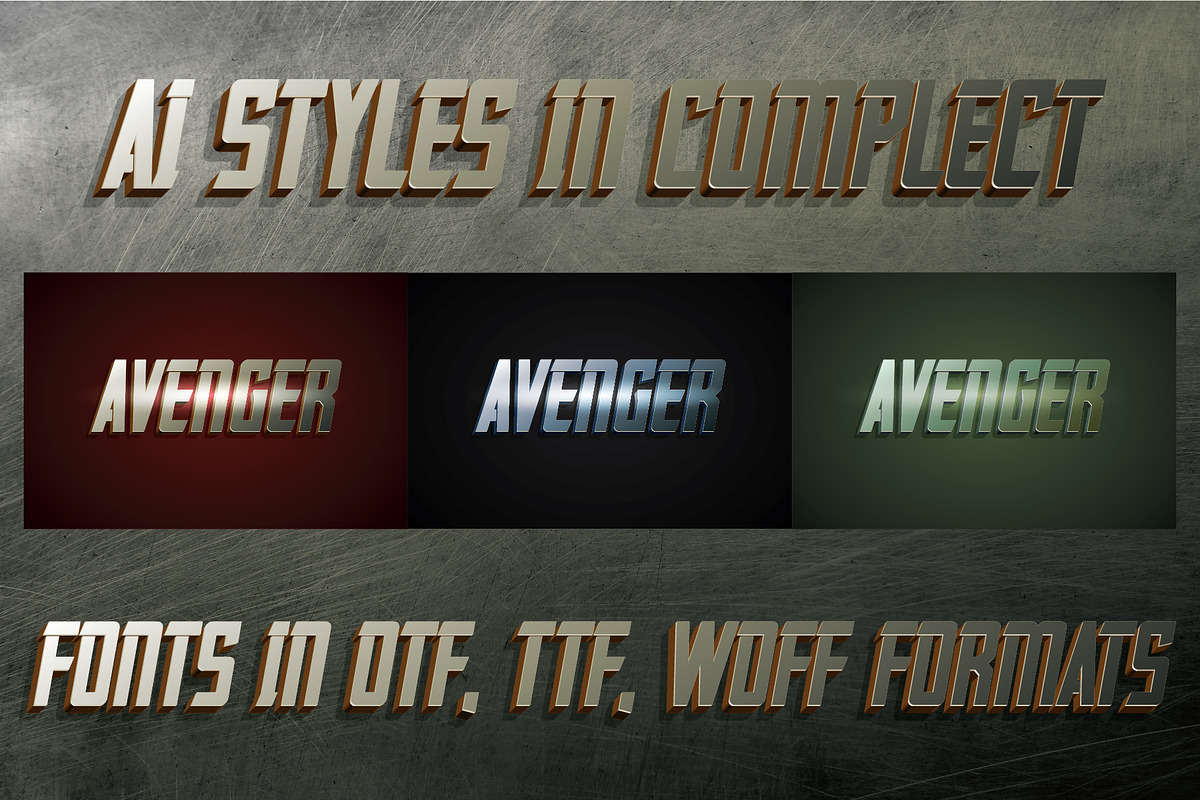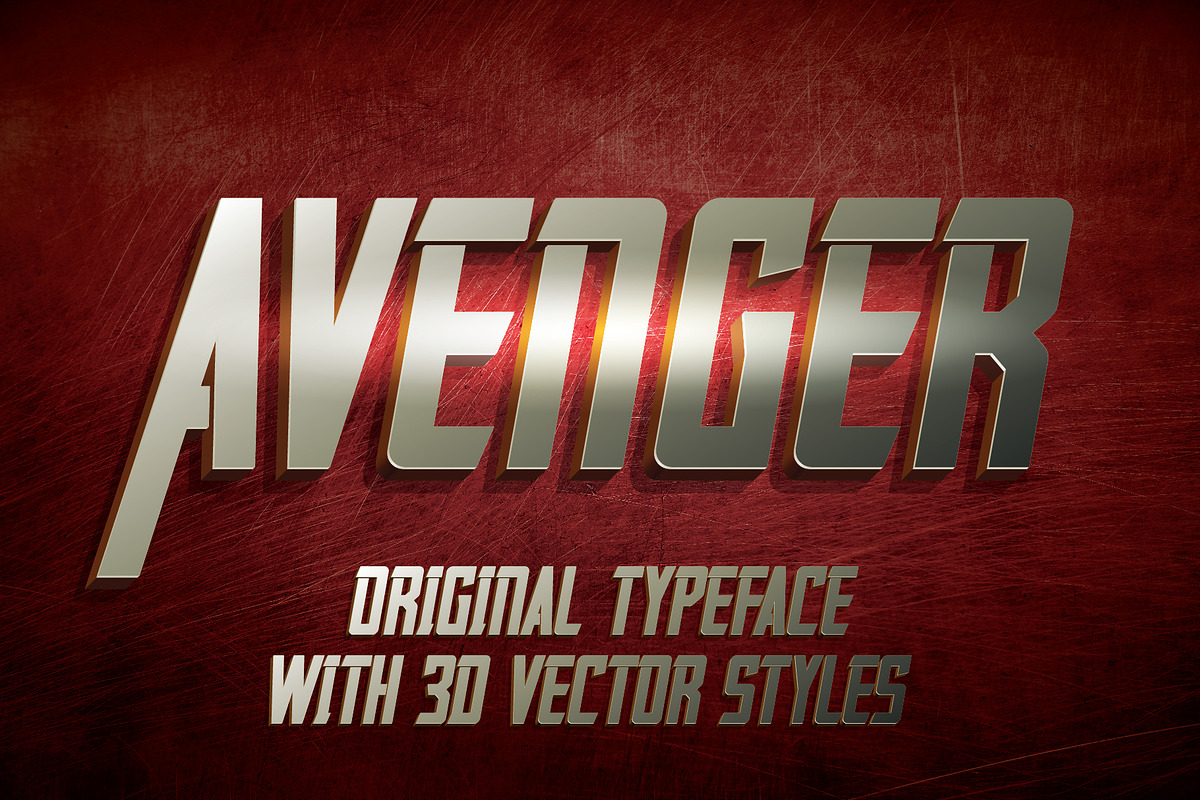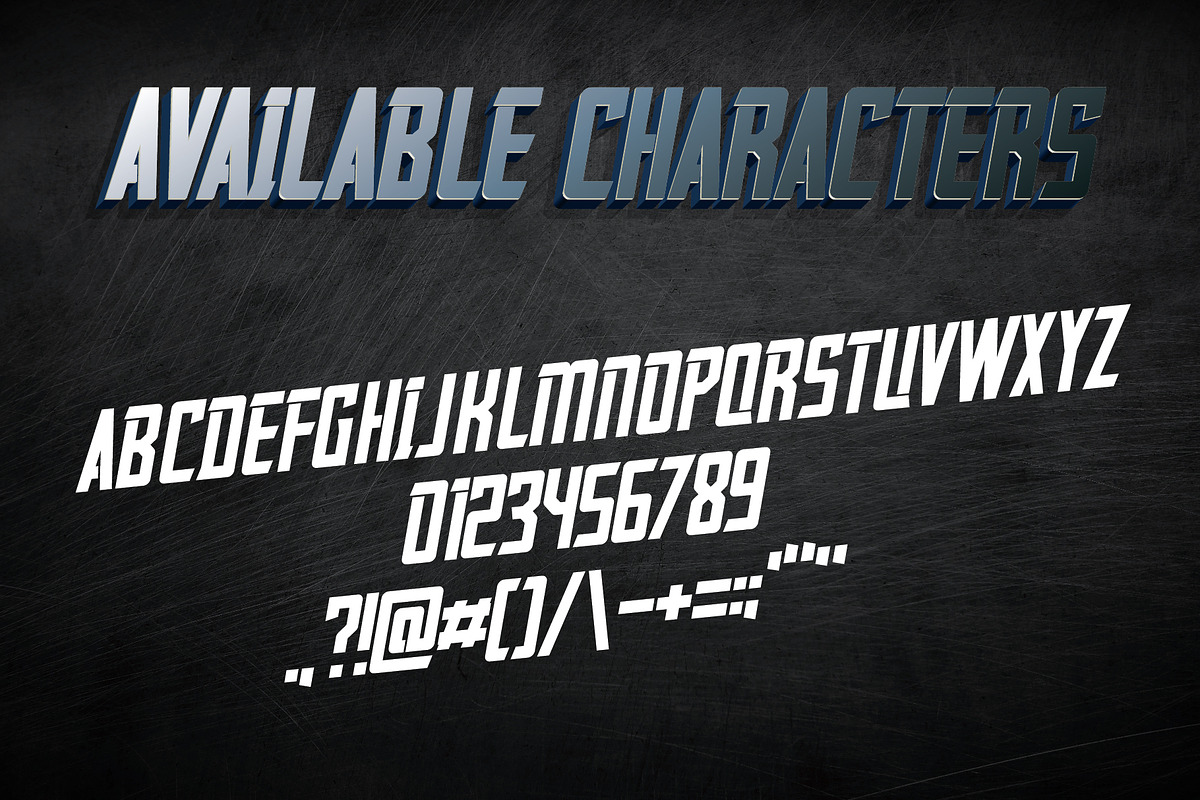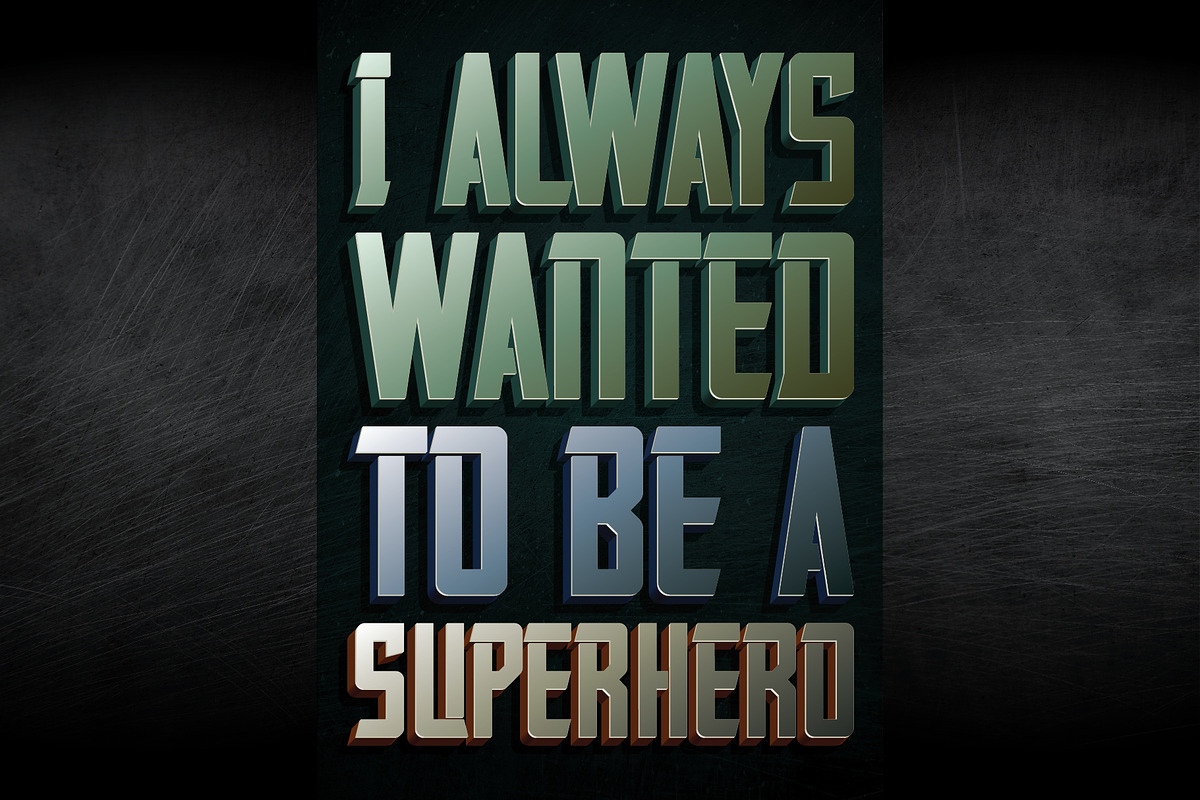
Avenger label typeface
Introducing a vintage look label typeface named "Avenger". This typeface was inspired by comics books, movies etc. This font will good viewed on any sirous design like poster, t-shirt, label, logo etc.
Why Avenger label typeface is worth a look
Avenger label typeface by VozzyStock fits naturally into Branding, posters, packaging, typography.